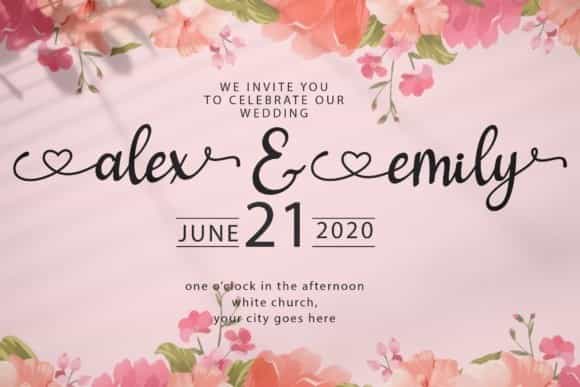
Love and Heart is a pretty and fascinating calligraphy handwriting font. You can tell from the scratches which give a real and modern look. The font is of a nice and complete quality and is filled with the best characters. you can apply this font to your design products such as invitation, mockup, embossed, branding cards and many others.